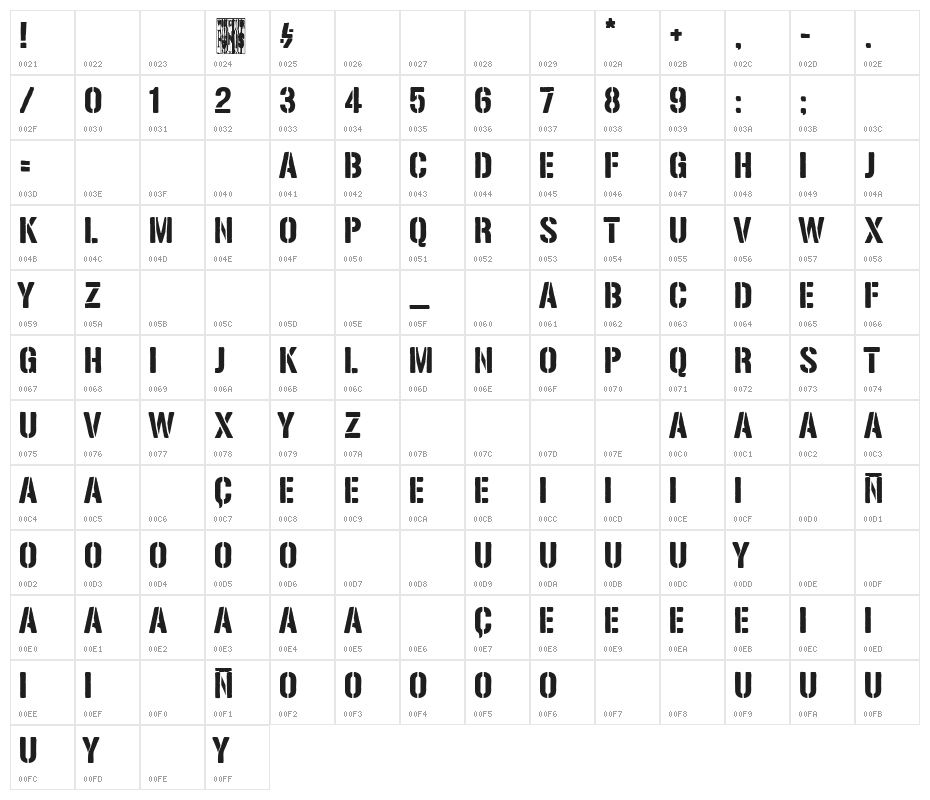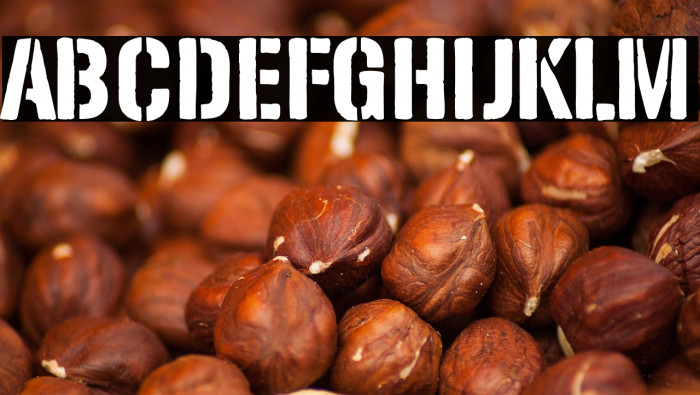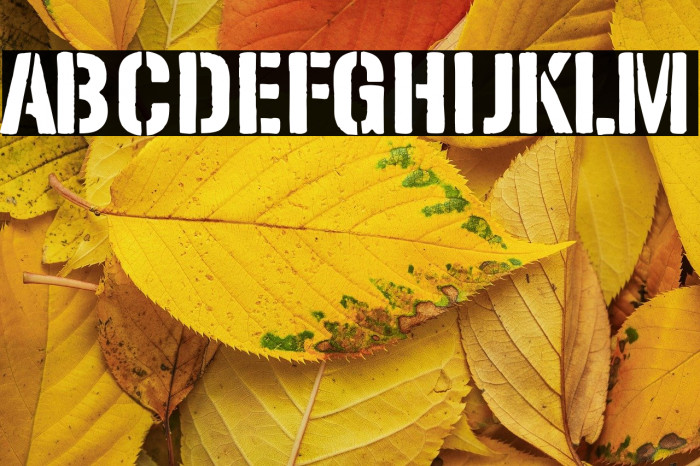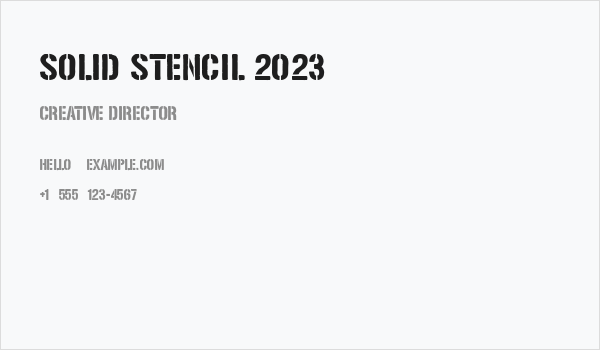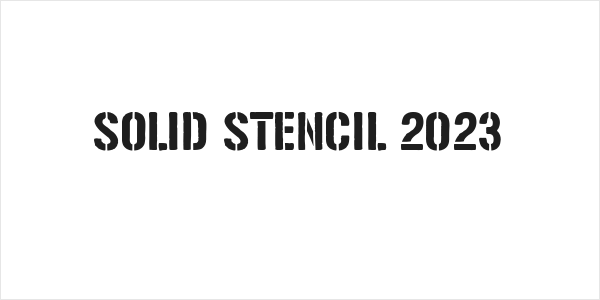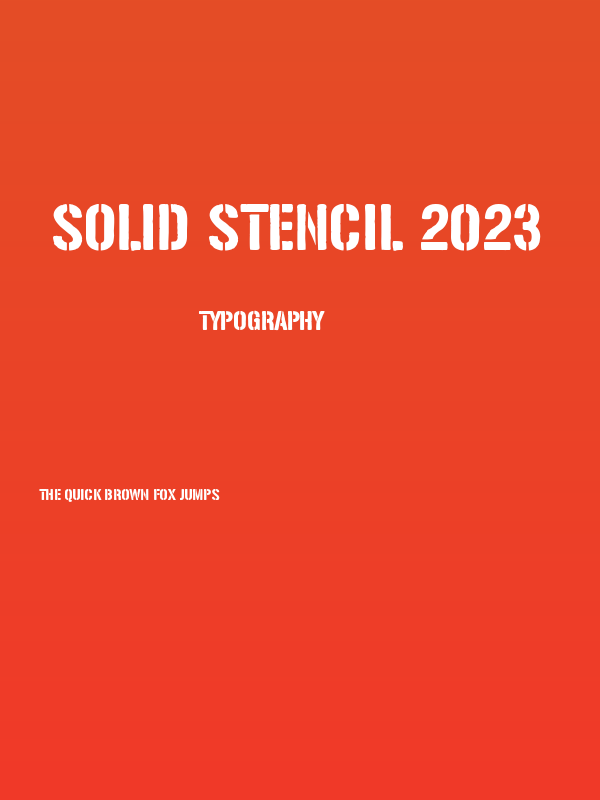
Solid Stencil 2023 Font
Solid Stencil 2023 Description
A bold, uppercase stencil-style font with geometric letterforms and clear breaks in the strokes, evoking an industrial and utilitarian feel. The characters are evenly spaced, with consistent width and high legibility, suitable for impactful display purposes.
| Overall Style | Industrial, Stencil, Modern |
| Use Case | Headlines, Posters, Signage, Logos |
| Proposed Projects | Posters, packaging, signage, military-themed graphics, branding, event promotions. |